Osu Font
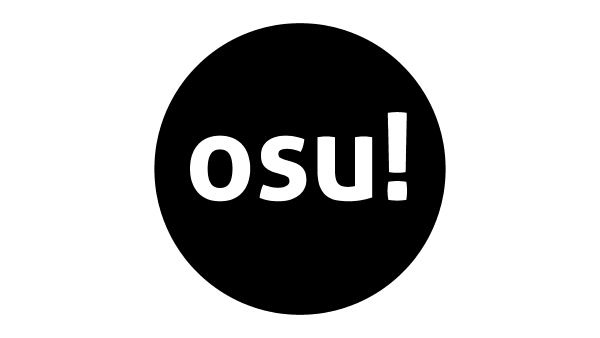
What is The Font Of Osu?
The Osu Font is Aller Bold, the typeface used in the game’s logo, interface, and promotional visuals. Aller is a sans-serif font family designed by Dalton Maag, featuring clean geometry, rounded forms, and excellent readability. Its bold weight gives Osu! a modern, energetic, and friendly visual identity that fits the game’s fast-paced rhythm gameplay. Aller is a free font, making it easily accessible for personal and creative use, including fan art, mockups, and UI-inspired designs.
About Osu
Osu! is a rhythm game released in 2007, created by Dean “peppy” Herbert. Inspired by music rhythm titles, it challenges players with precise timing and reflexes. Known for its competitive community and custom beatmaps, Osu!’s clean typography helps reinforce clarity, focus, and accessibility across its interface and branding.